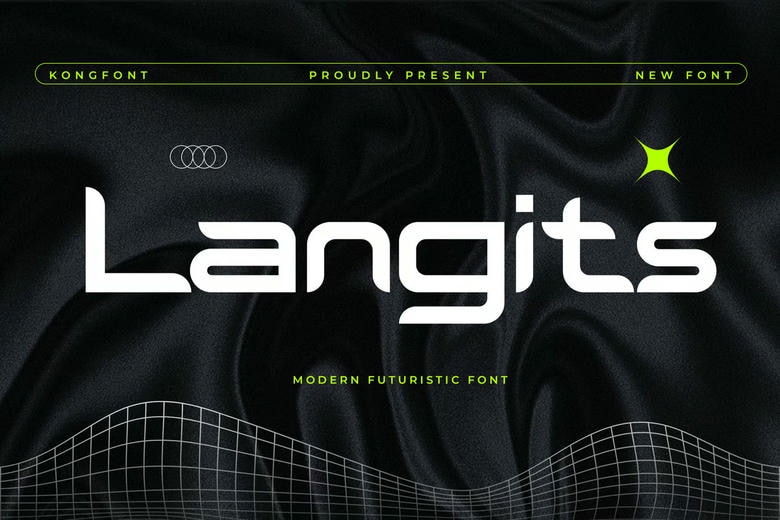
Langits Font
Langits – Modern Futuristic Font. Say hello to Langits, a modern futuristic font designed to bring your creative vision into the future. Inspired by sleek technology, digital landscapes, and space-age aesthetics, Langits features sharp angles, geometric shapes, and a clean, minimalist structure that feels both innovative and stylish.
Perfect for sci-fi projects, tech branding, esports logos, digital interfaces, and high-impact headlines, Langits is made for designers who want to push boundaries and explore bold visual identities. Its versatile style also works well in posters, album covers, app UI, and more.
Langits Sans Serif Font